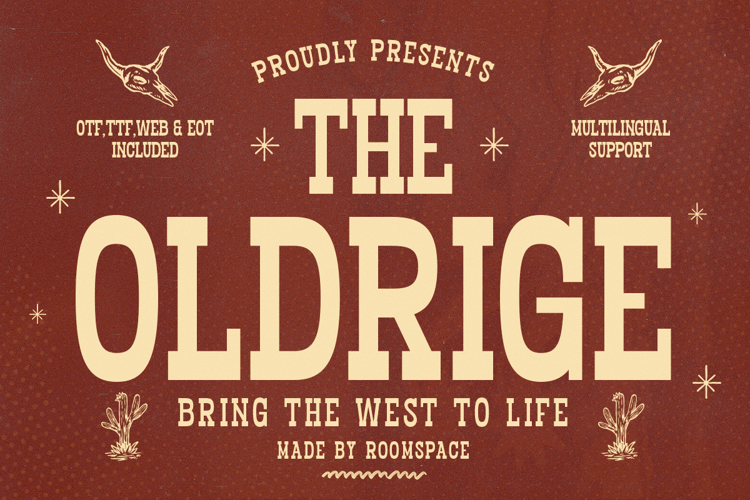
Oldrige Font
x The design features bold slab-serif lettering in a warm cream tone set against a textured reddish-brown background, capturing the rugged feel of classic frontier typography. Decorative elements such as hand-drawn stars, steer skull illustrations, and subtle grain textures enhance the authentic Old West aesthetic. The tagline “Bring the West to Life” reinforces the font’s purpose for Western branding, retro packaging, rustic posters, and heritage-inspired design projects. Overall, the visual communicates a strong frontier personality and vintage Americana charm.